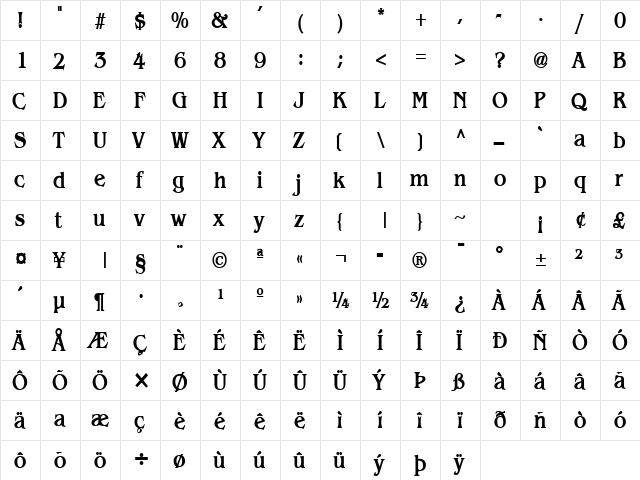
Bangle-Condensed Bold
Design Context for Bangle-Condensed Typeface
Bangle-Condensed is a composed and adaptable typeface that performs quietly and consistently across a wide range of design contexts. The heavy weight commands attention and anchors typographic hierarchies. The condensed width makes it efficient for tight spaces without sacrificing legibility.
Pro Tip: Use Bangle-Condensed in both headline and body roles to test its range before committing to a single application.